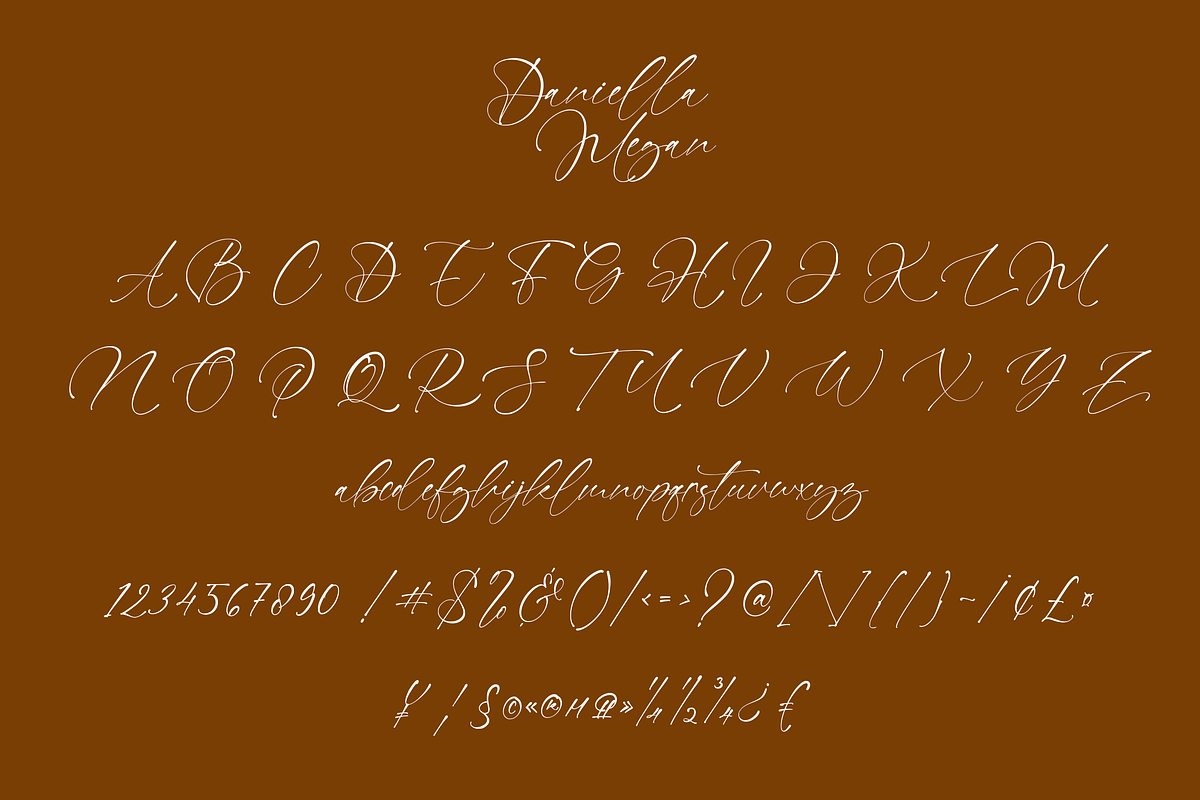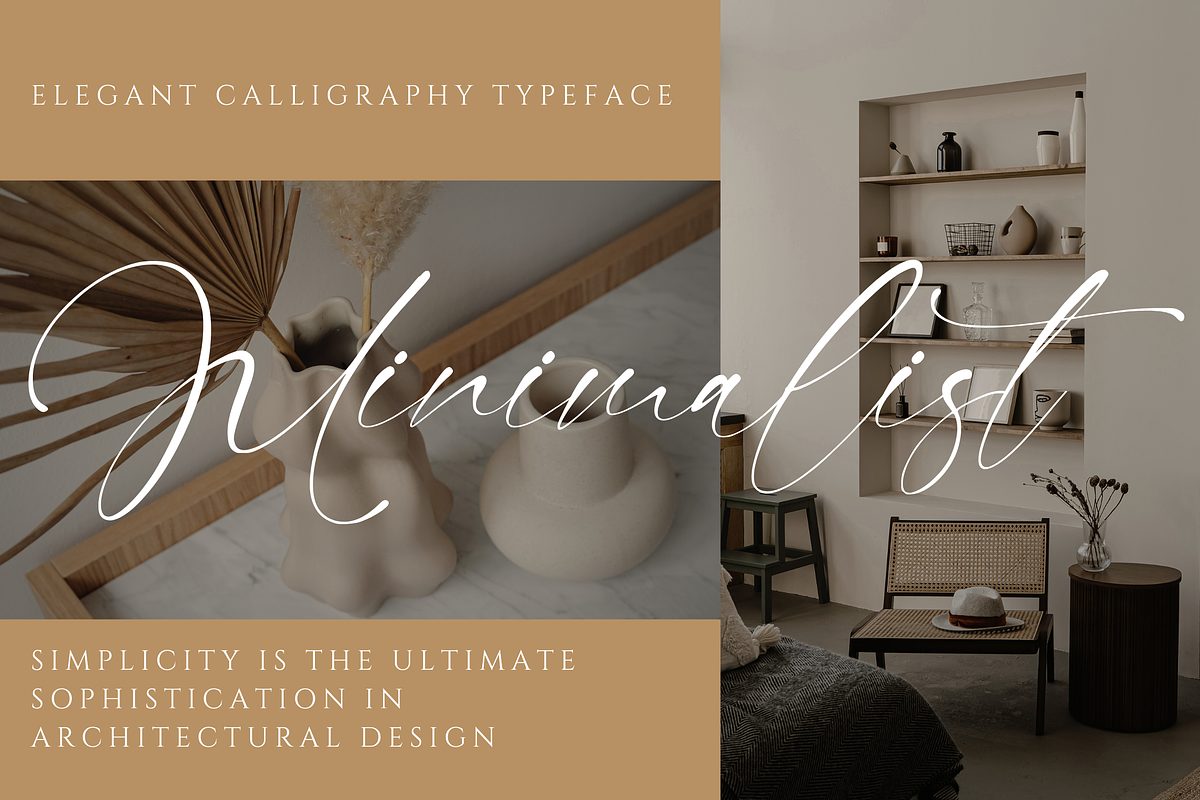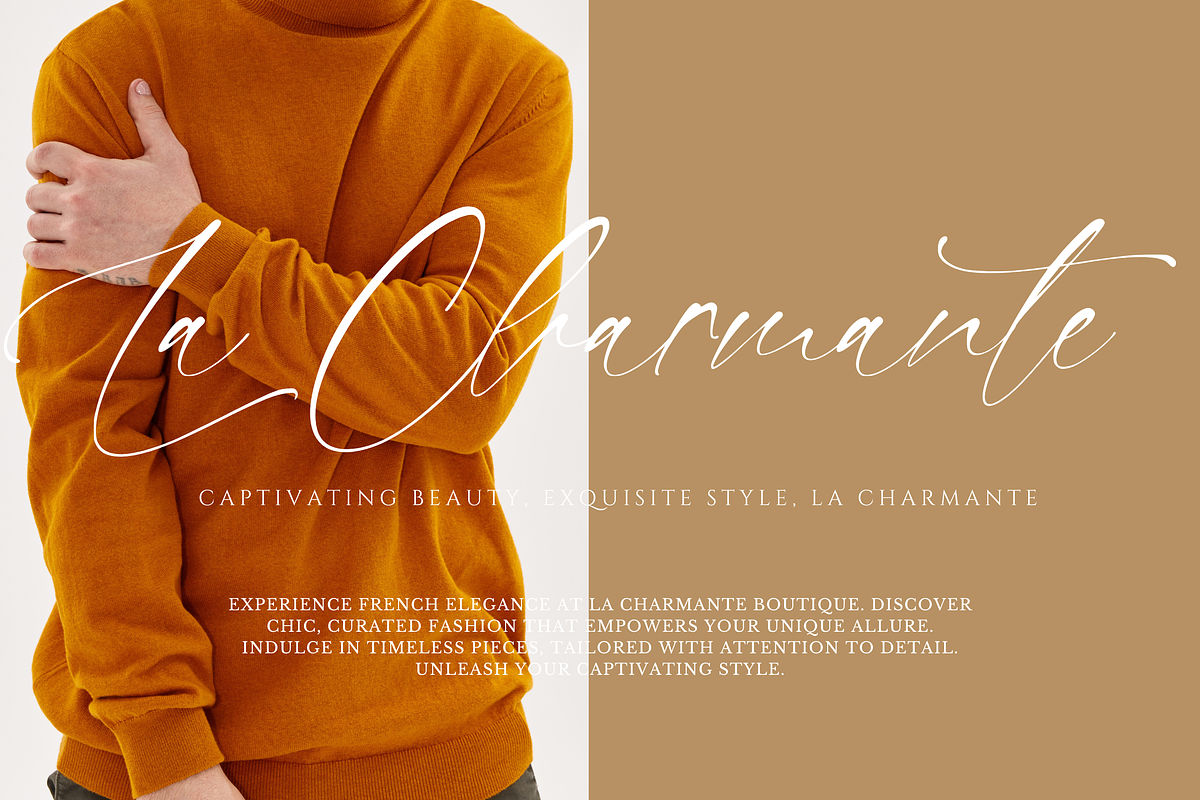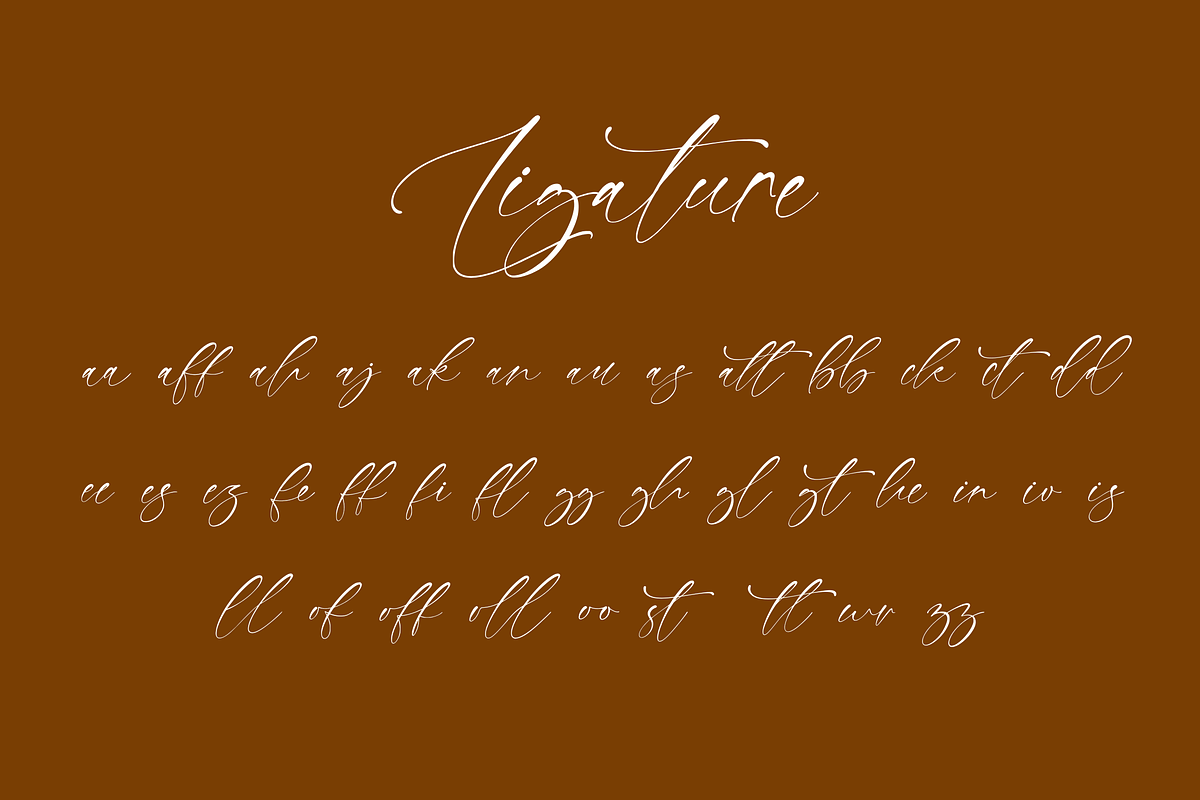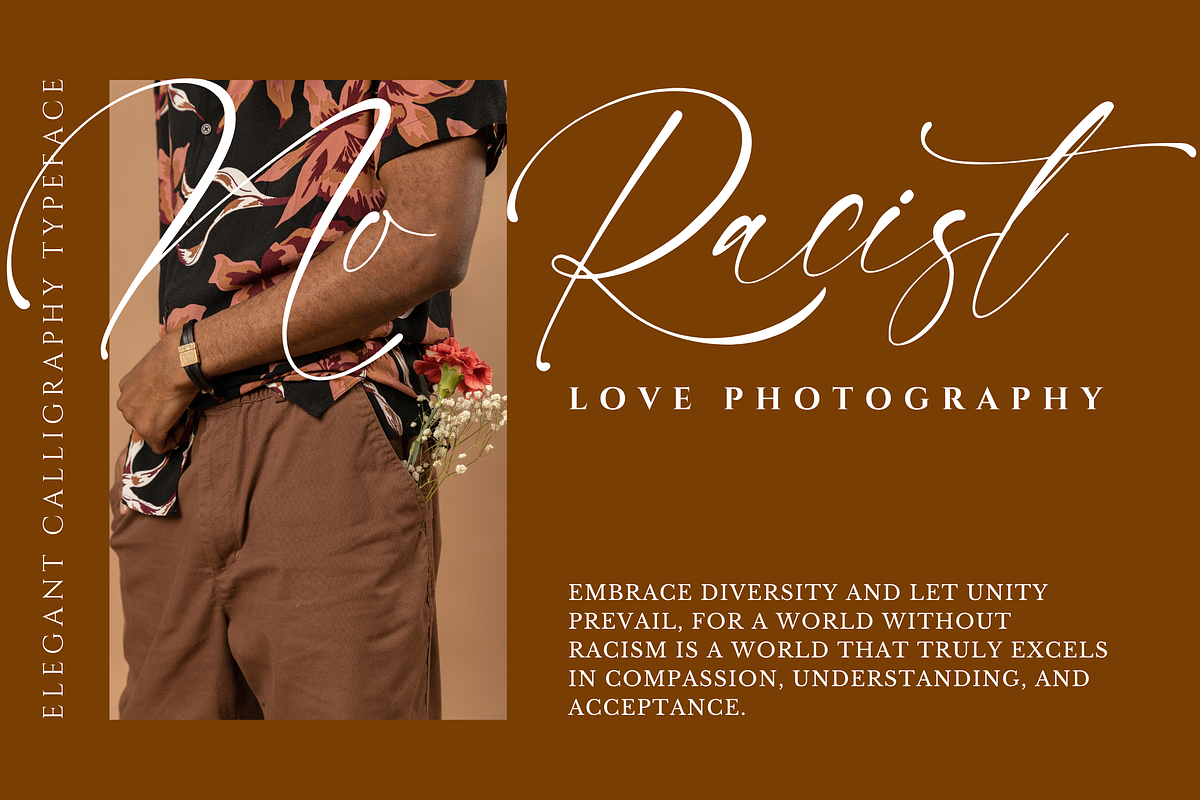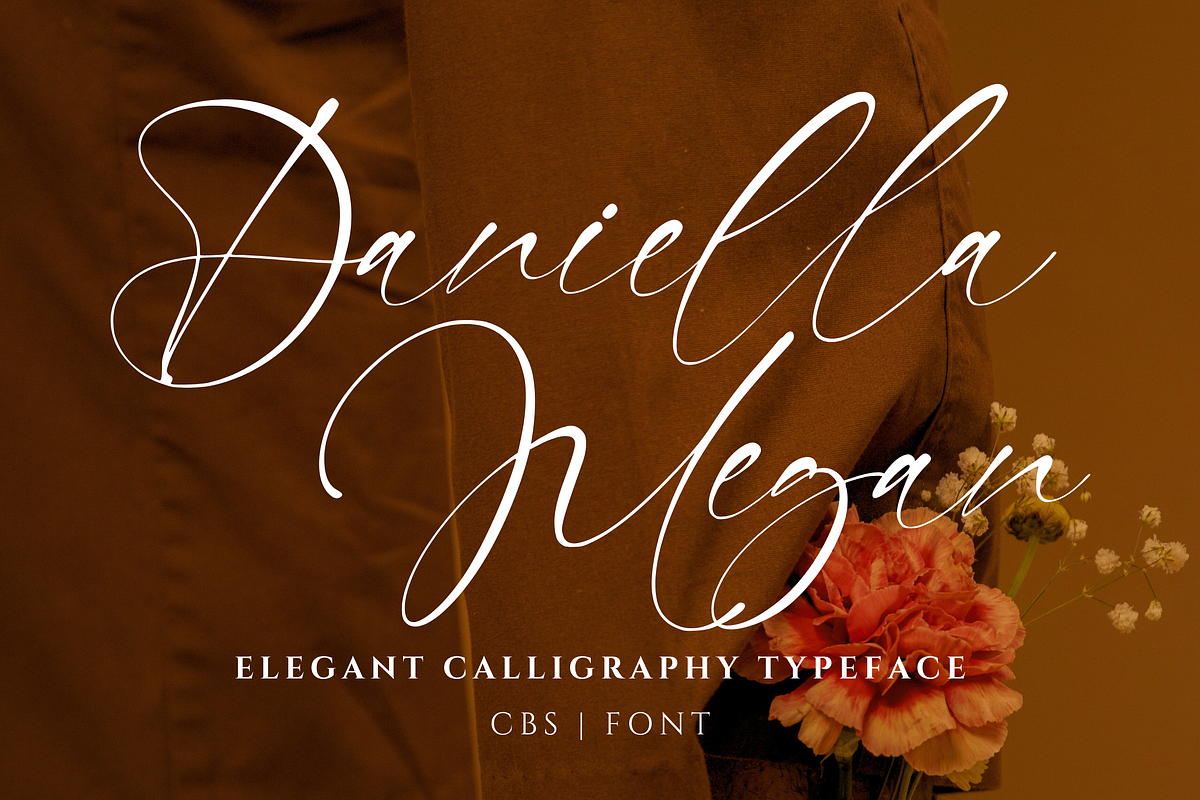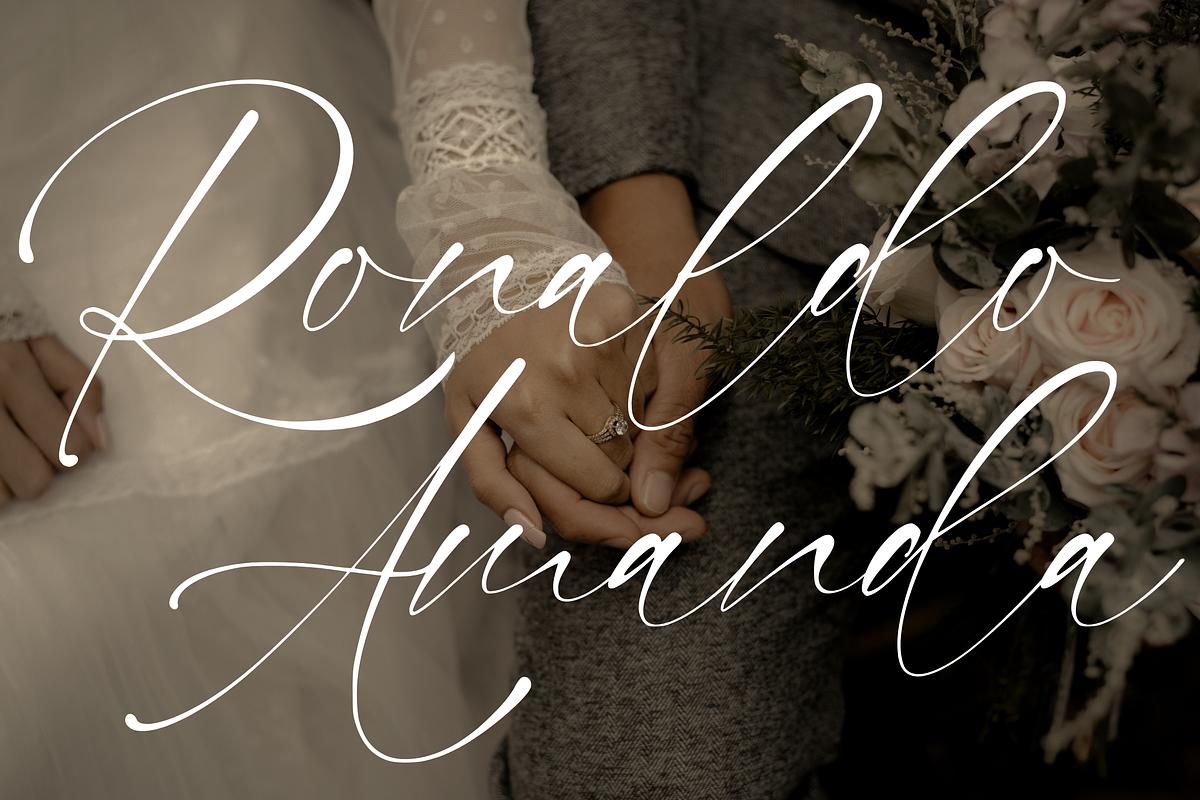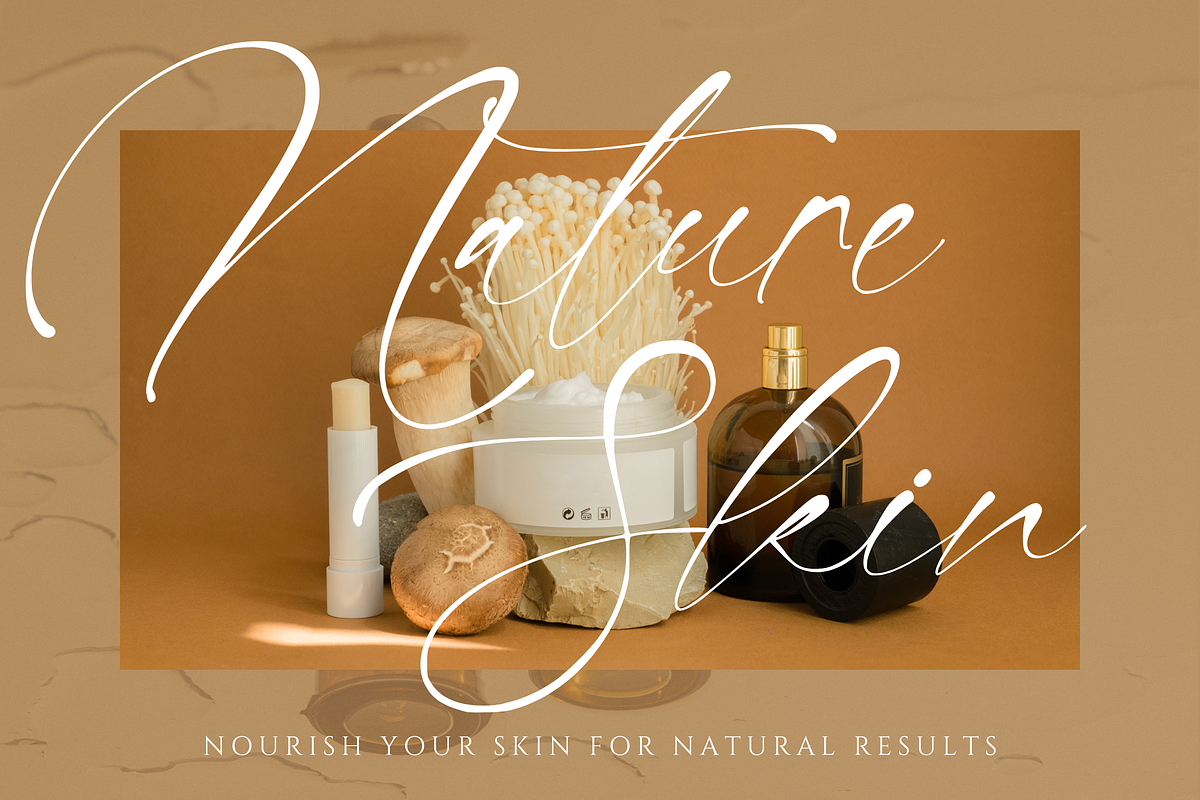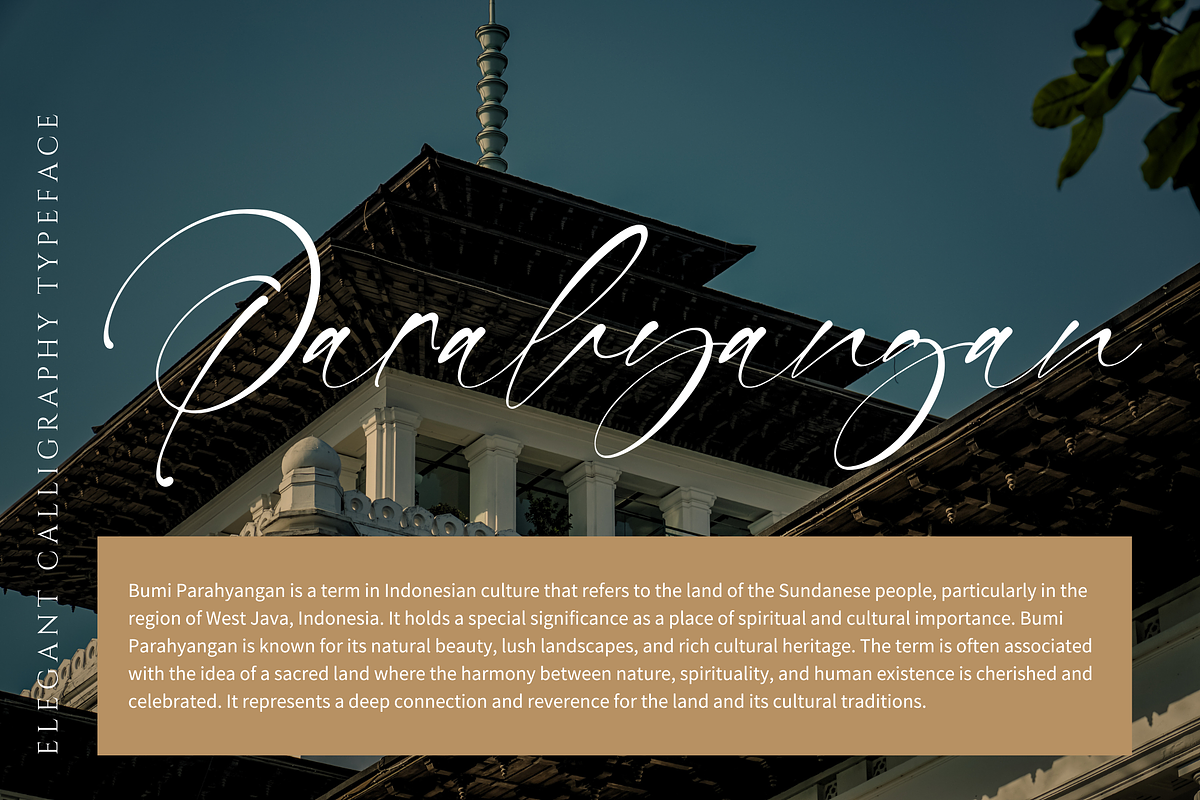
Daniella Megan - Modern Signature
Explore the elegance of Daniella Megan, a modern signature handwriting font that adds a touch of sophistication to your creative projects. With its sleek curves and stylish strokes, this font offers a seamless blend of professionalism and personal flair. It includes both uppercase and lowercase letters, numbers, punctuations, and supports multiple languages. Unlock your design potential with Daniella Megan and elevate your typography game.